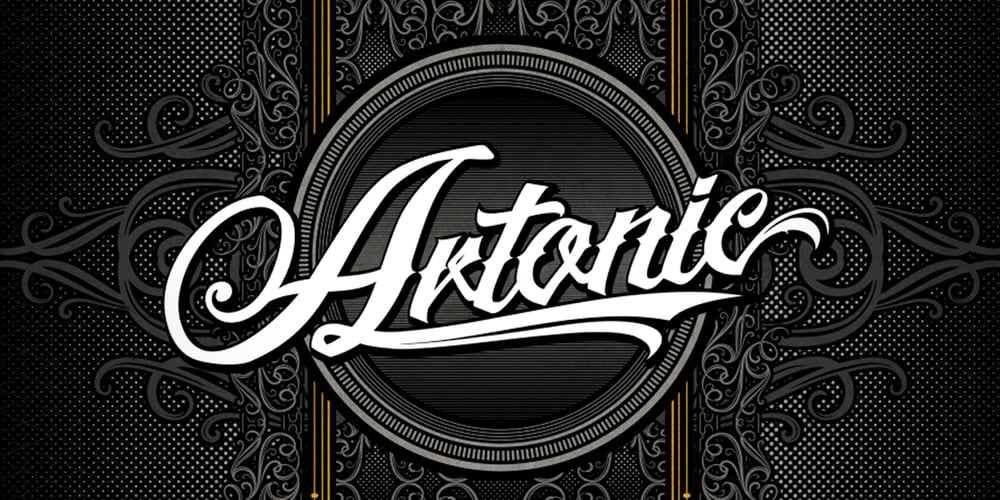
Artonic
Artonic font
Artonic Font Family was designed by published by Seventh Imperium. Artonic contains 3 styles and family package options. Artonic is a tattoo script typeface inspired by elegant script and sharp look typeface. The characteristic of artonic is flowing edge, elegant,sharp and black. These typefaces are made out of pride and passion for urban tattoo design. Of course Artonic comes with a variety of ligatures and alternative forms, available through OpenType features.